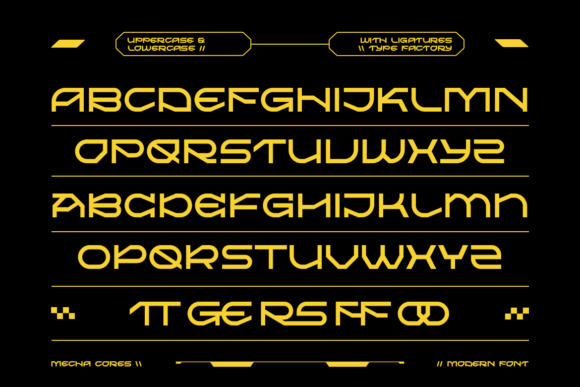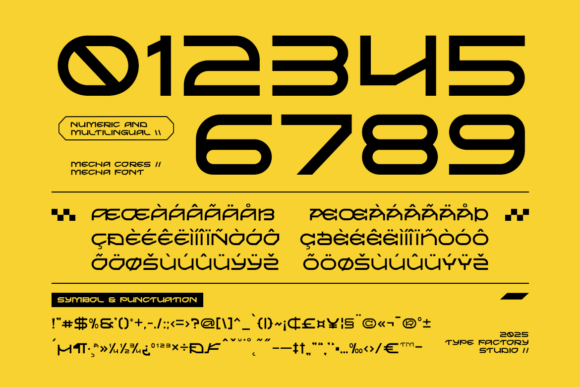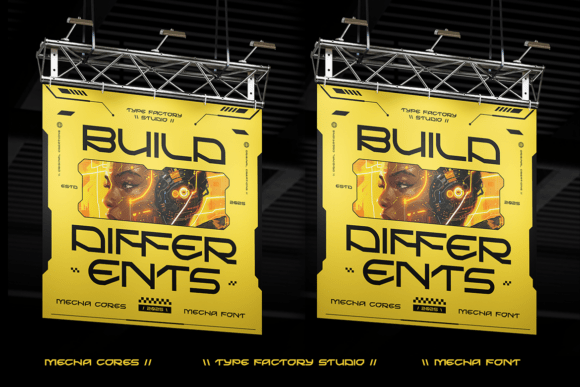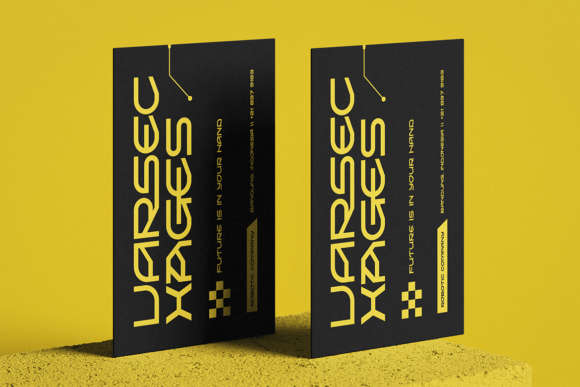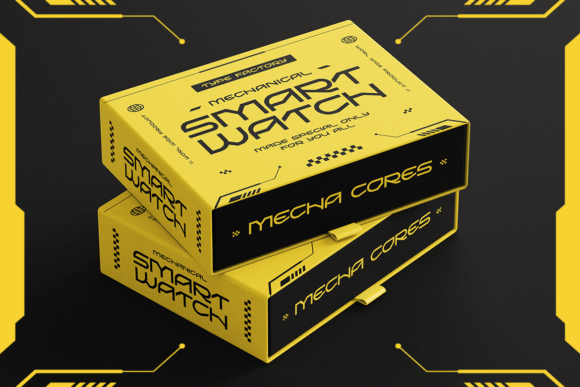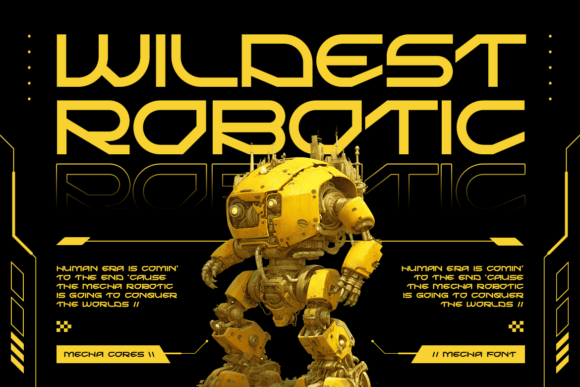
Introduction to Mecha Cores Font
Have you ever been working on a creative project and felt like your design was missing that one key element to bring it to life? Perhaps it was a futuristic aesthetic, or a touch of industrial chic. For many designers, finding the perfect font can be a game-changer, elevating a concept from good to great. If you’re looking for a high-quality design resource that will add some serious punch to your project, you’re in luck.
Meet the Mecha Cores Font, a cutting-edge display font that’s perfect for designers who want to add a touch of sci-fi sophistication to their work. With its sharp geometry and mechanical structures, this font is sure to turn heads and make your design stand out from the crowd.
Key Features of Mecha Cores Font
- High-quality digital font designed for creative projects, perfect as a design resource.
- Unique, futuristic design with a transparent background, allowing for easy customization and layering.
- Includes a range of glyphs and characters, making it suitable for a variety of creative projects.
- Designed with a high resolution, ensuring crisp and clear text output, even at large sizes.
- Perfect for use in digital art, graphic design, and other creative endeavors, where a high-quality font is essential.
Honest Review: Mecha Cores Font
I recently stumbled upon the Mecha Cores Font, and I must say it’s a great addition to any designer’s toolkit. This font is perfect for those working on high-quality, futuristic designs. As a design resource, it offers a lot of versatility and can be easily integrated into a variety of creative projects.
- ✨ Unique design aesthetic that stands out from the crowd
- ✨ Excellent for creating a sense of depth and dimensionality in designs
- ✨ Offers a range of customizable options, including a transparent background
- ⚠️ Limited character set, which may not be ideal for longer texts
- ⚠️ May not be suitable for all types of designs, such as formal or traditional projects
Overall, I’m impressed with the Mecha Cores Font. It’s a fantastic design resource for those working on futuristic or sci-fi themed projects. While it may have some limitations, its unique design aesthetic and versatility make it a valuable addition to any designer’s toolkit.
How to Use Mecha Cores Font
The Mecha Cores Font is ideal for use in graphic design, digital art, and creative projects. It’s a high-quality design resource that can be used for logos, posters, and other visual elements. Its transparent background feature makes it perfect for use in layered designs and compositions.